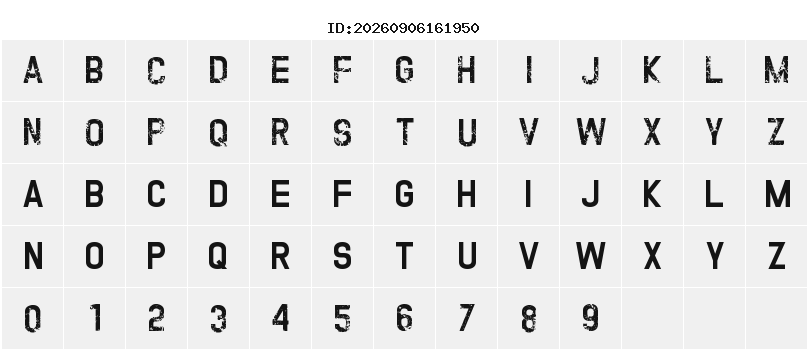
• Font Name: TWOFOLD uncomplete DeSigN
• Full Font Name: TWOFOLD uncomplete DeSigN
• Version: Version 1.00 October 29, 2012, initial release
• Designer: Situjuh Nazara
About TWOFOLD uncomplete DeSigN.ttf
TWOFOLD uncomplete DeSigN.ttf is a modern, elegant sans-serif font designed for ultimate readability and visual harmony. Perfect for branding, headlines, web design, and print materials.